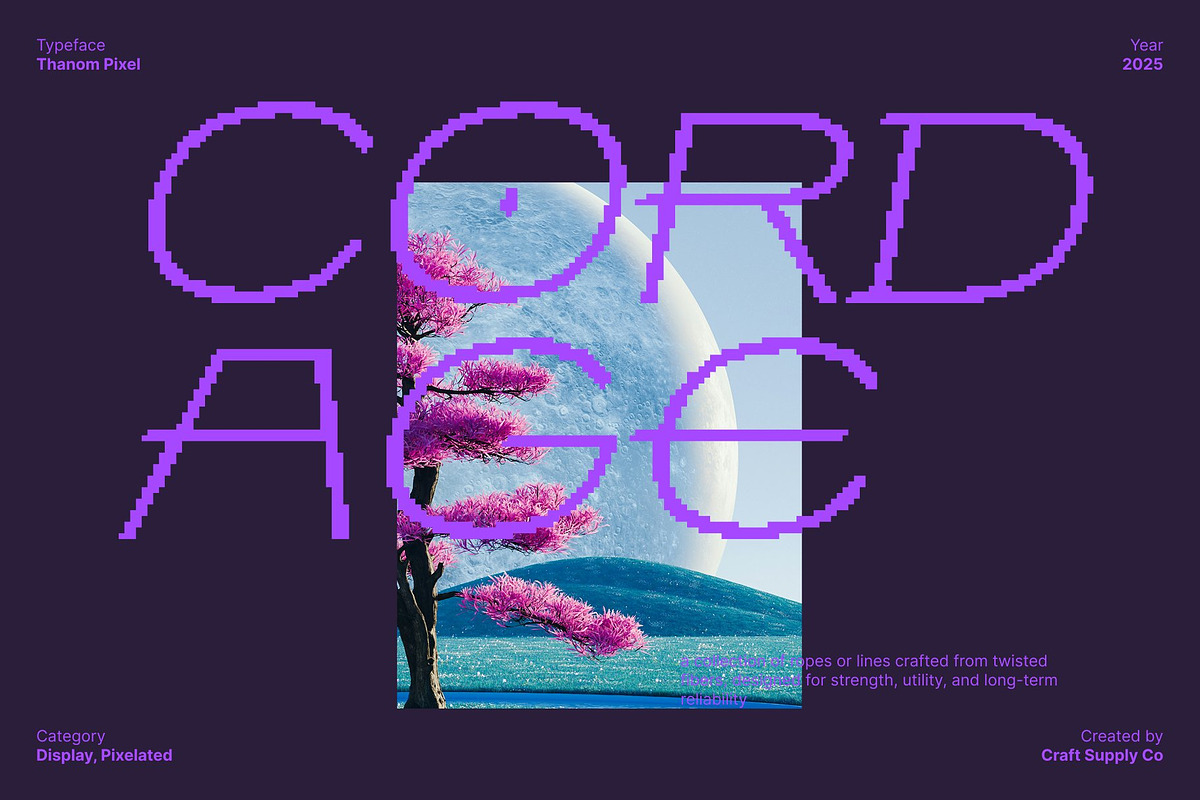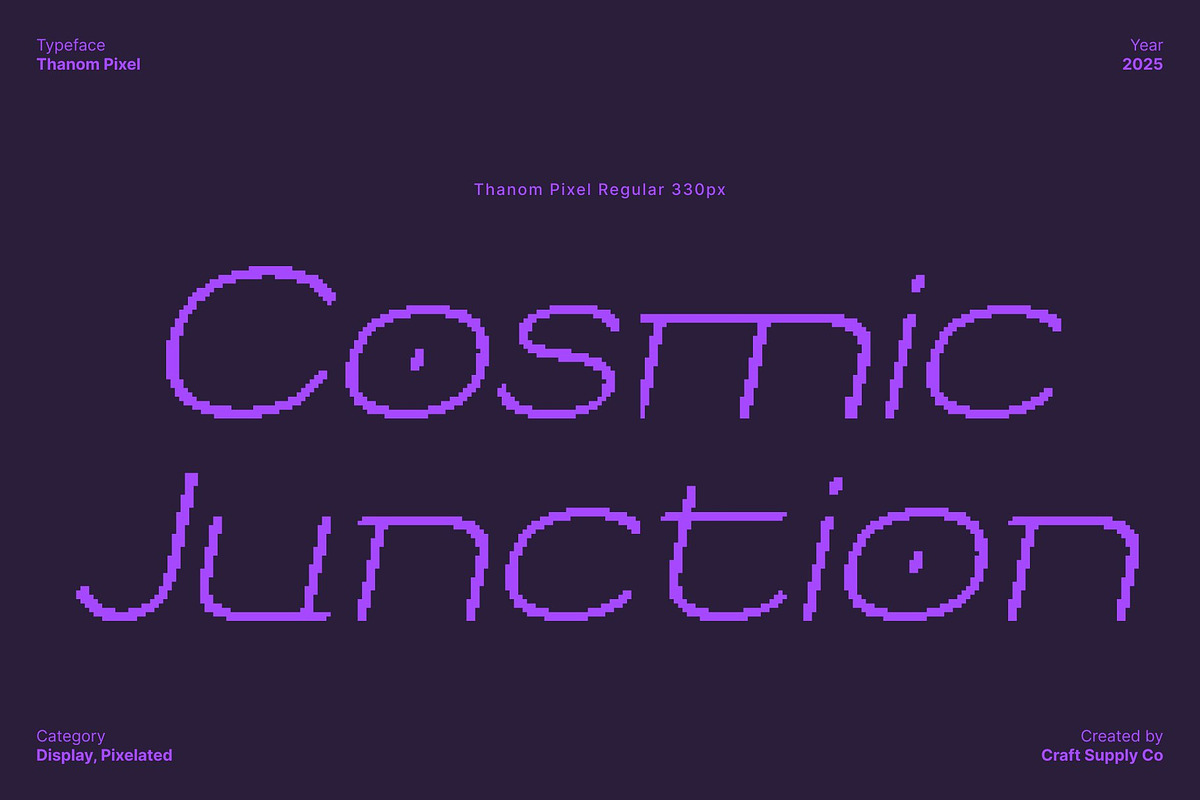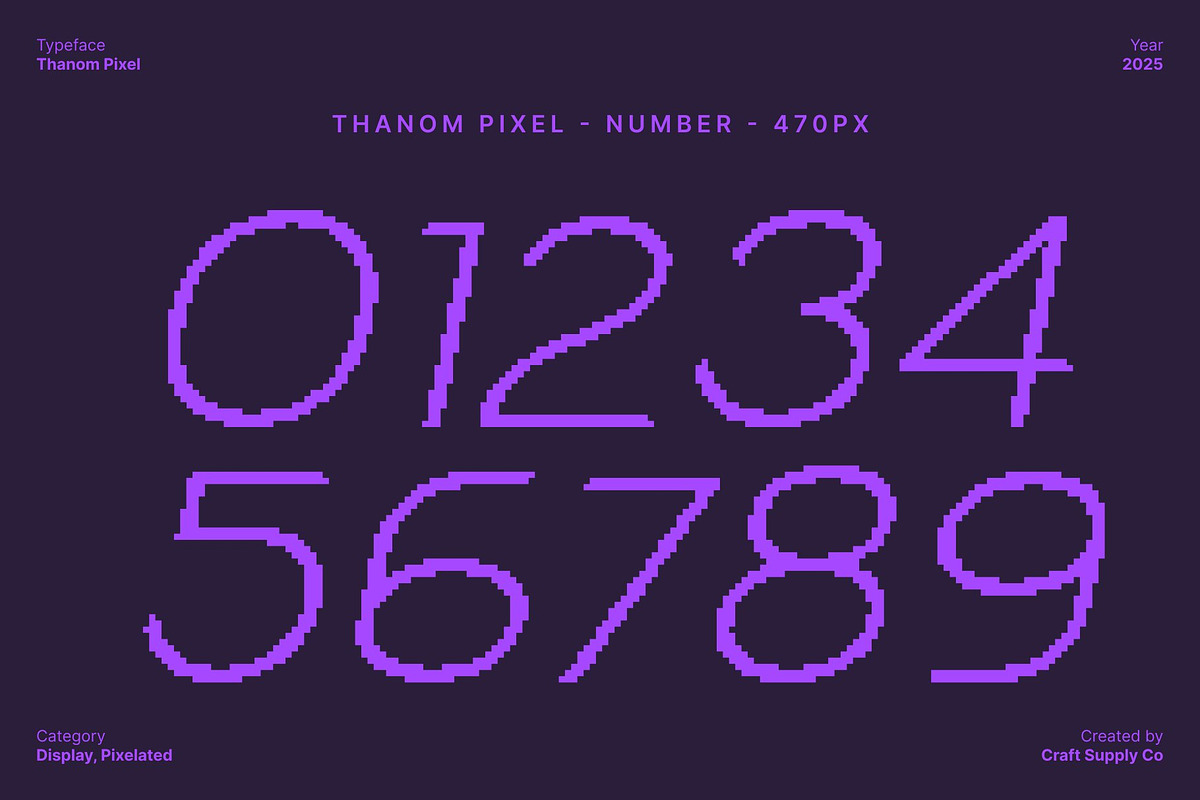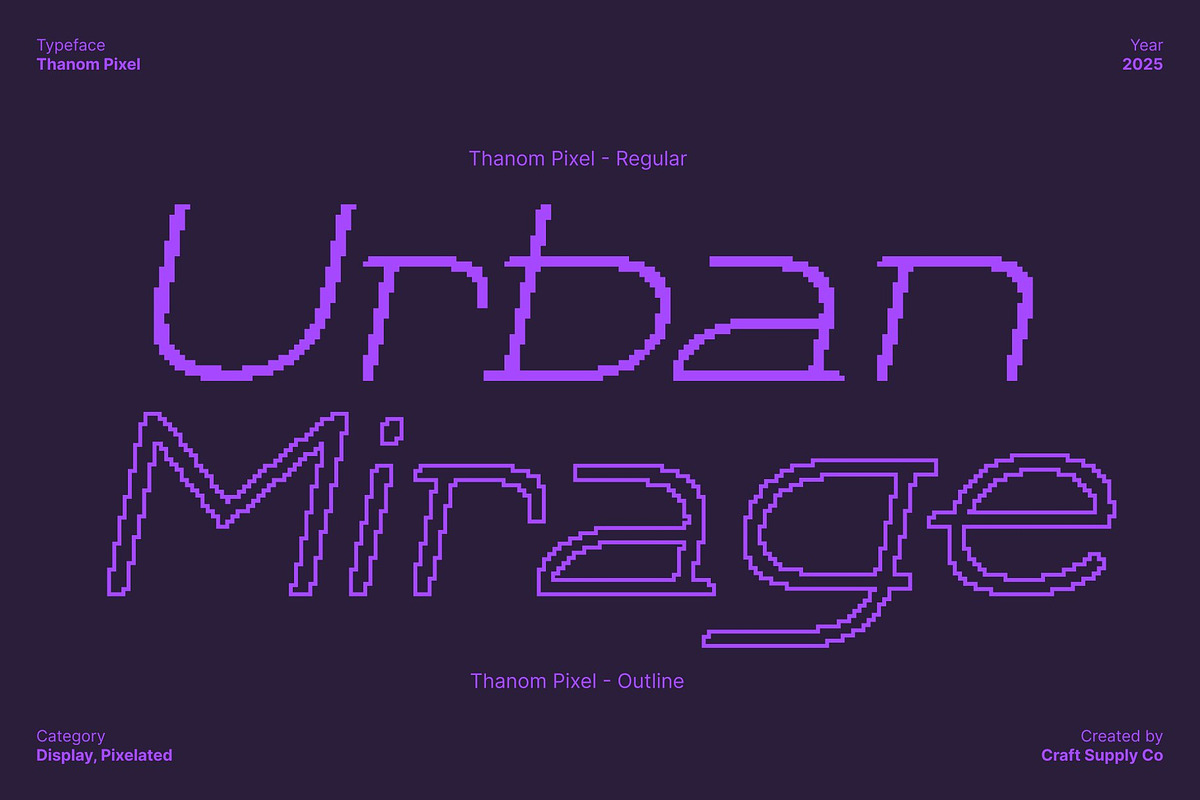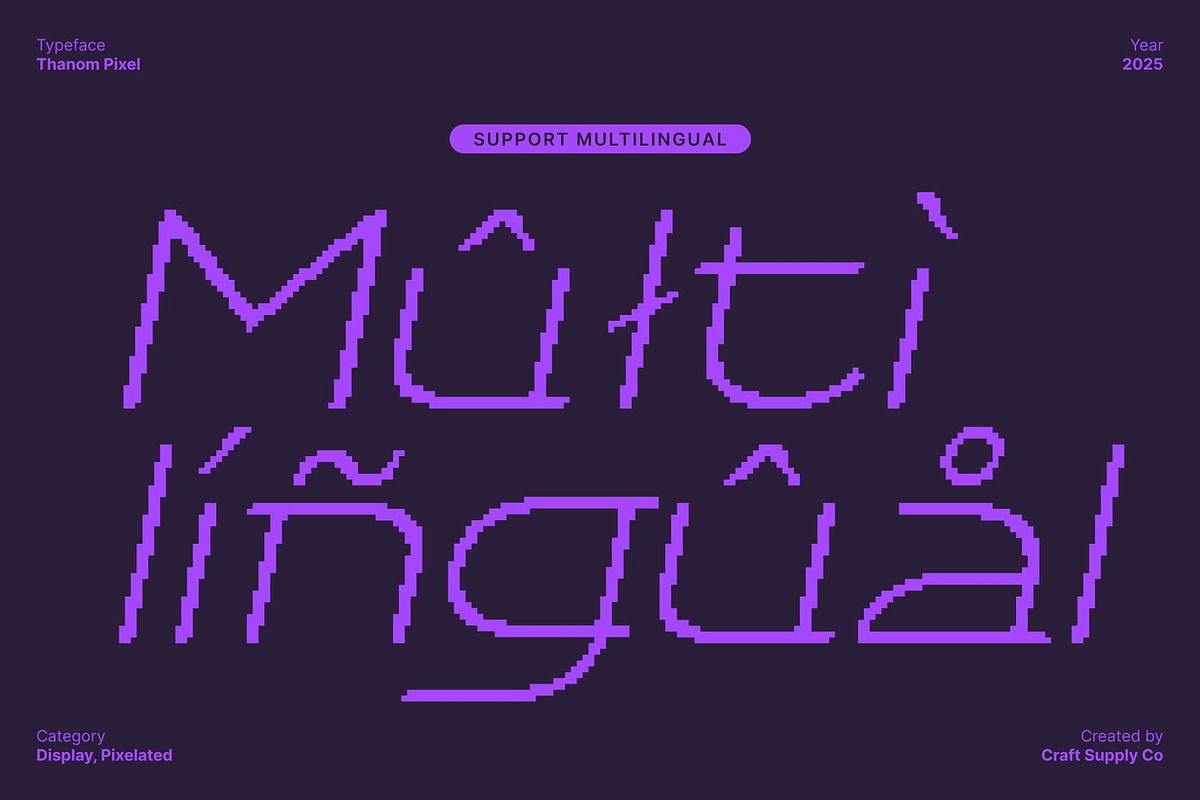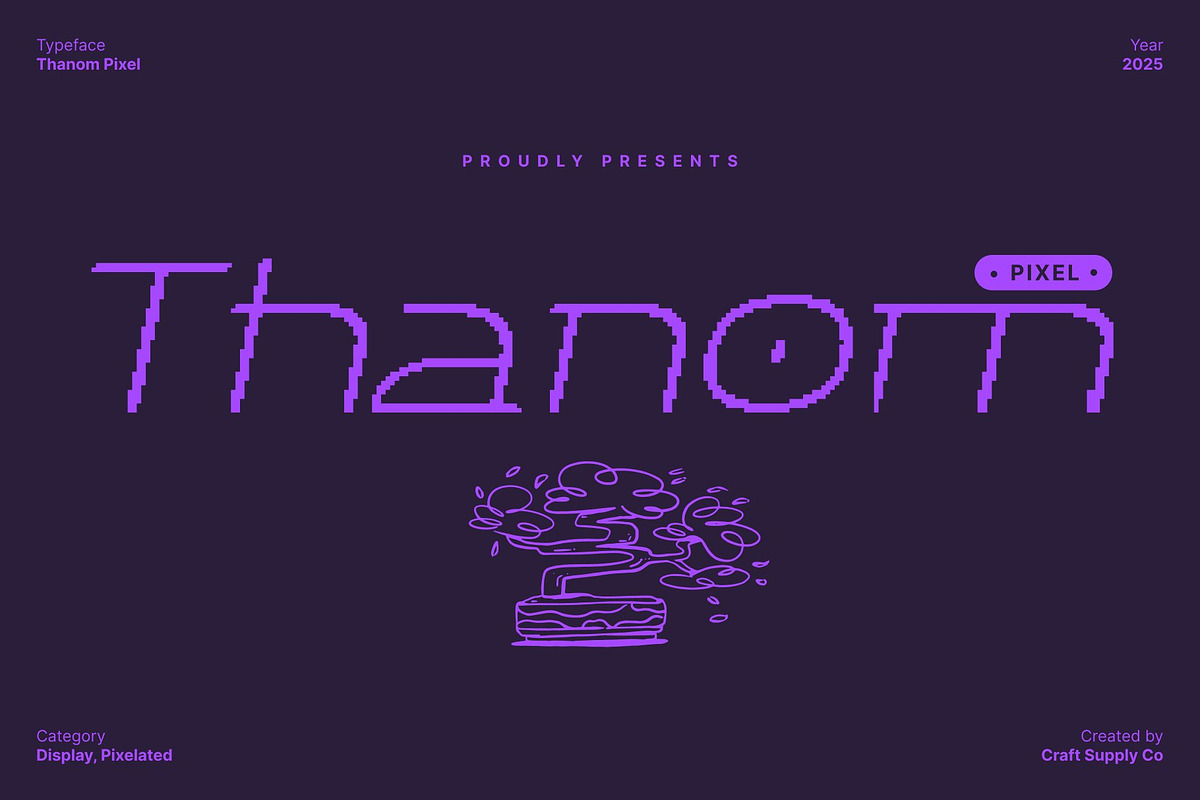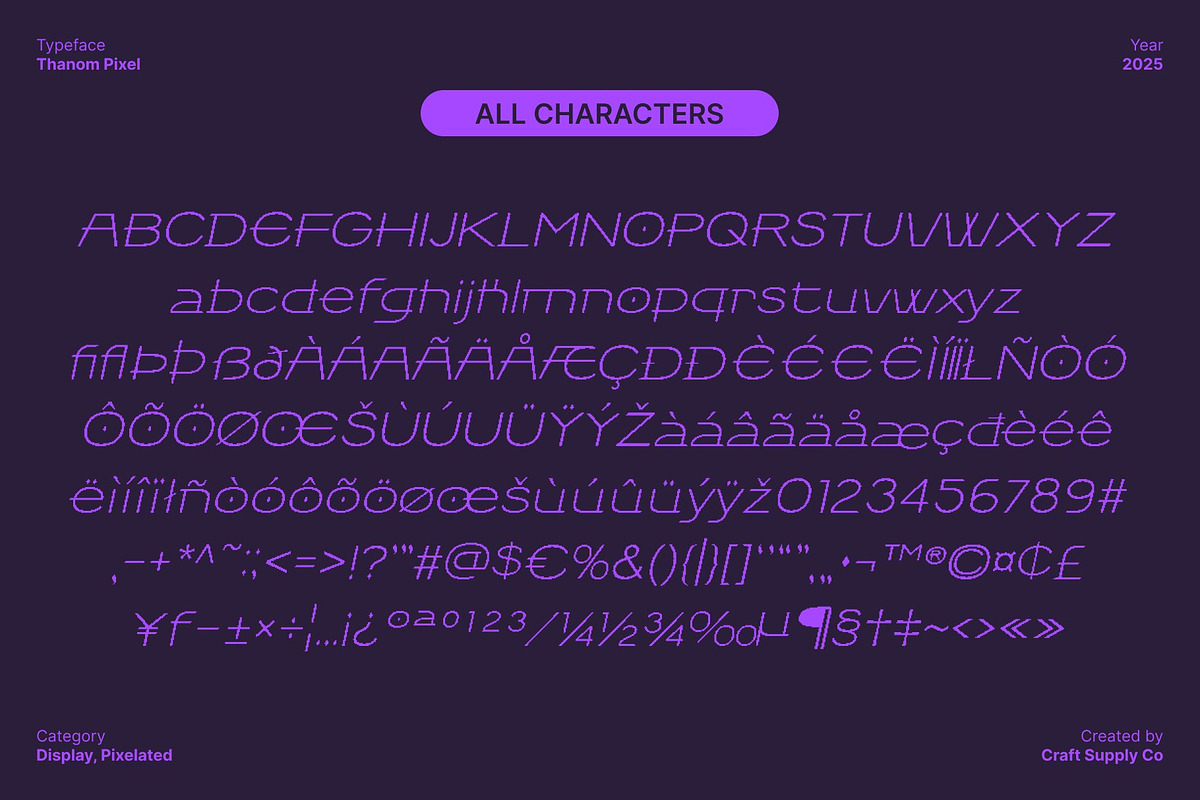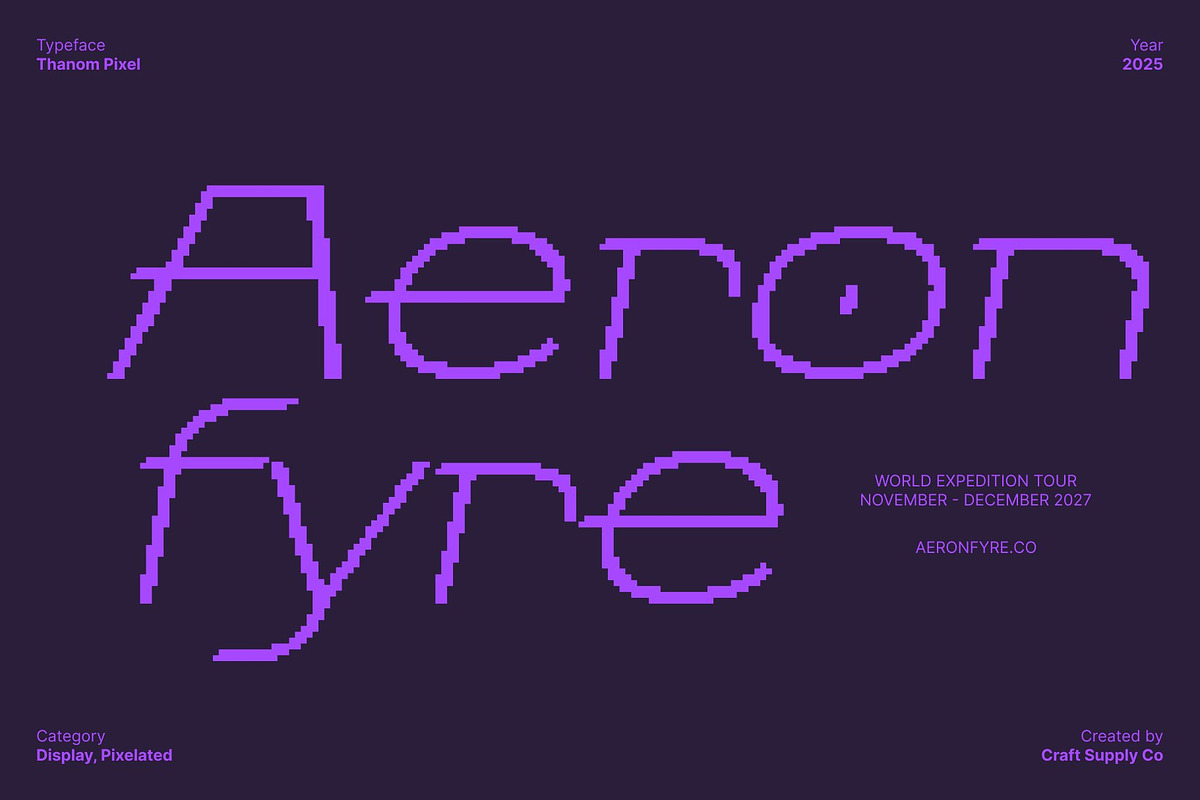
Thanom Pixel
Thanom Pixel – Retro Digital Energy with Modern Warmth
90s Digital Style with a Modern Twist This is a pixel-inspired display font that captures the nostalgic charm of 90s digital shapes while introducing a sleek modern feel. Each character reflects the iconic blocky structure of early digital graphics, yet its refined execution brings a contemporary warmth that feels fresh and versatile.
Pixel Structure for Authentic Retro Appeal The pixel-based construction gives an instantly recognizable retro aesthetic. Its sharp edges and geometric forms evoke classic video games, old-school computer interfaces, and early digital typography. This authenticity strengthens the font’s thematic presence, making it ideal for projects that require a distinct throwback vibe while still maintaining crisp modern readability.
Creative Warmth for Playful, Engaging Designs Beyond its technical style, this font adds a surprising sense of warmth and personality. The balanced spacing and thoughtful detailing create a friendly and engaging presence, making designs feel lively and inviting. This combination of tech vibes and charm supports expressive visuals that can appeal to wide audiences.
Perfect for Posters, Games, and Bold Branding Ideal for posters, games, or branding, shines in projects that demand strong character and digital flair. Use it for game titles, event graphics, retro-inspired branding, creative logos, or stylized promotional designs. This font delivers both nostalgic impact and contemporary energy, ensuring every project feels memorable, vibrant, and visually compelling.